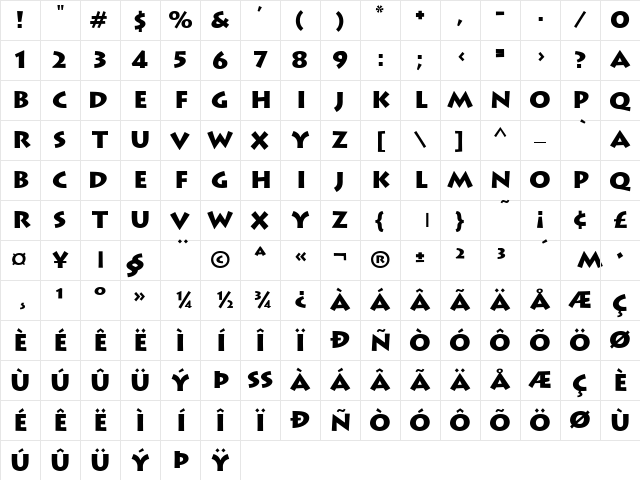
Lithograph Bold
Design Context for Lithograph
Lithograph is a composed and adaptable typeface that performs quietly and consistently across a wide range of design contexts. Its bold stroke weight gives it real presence on the page.
Pro Tip: Use Lithograph in both headline and body roles to test its range before committing to a single application.